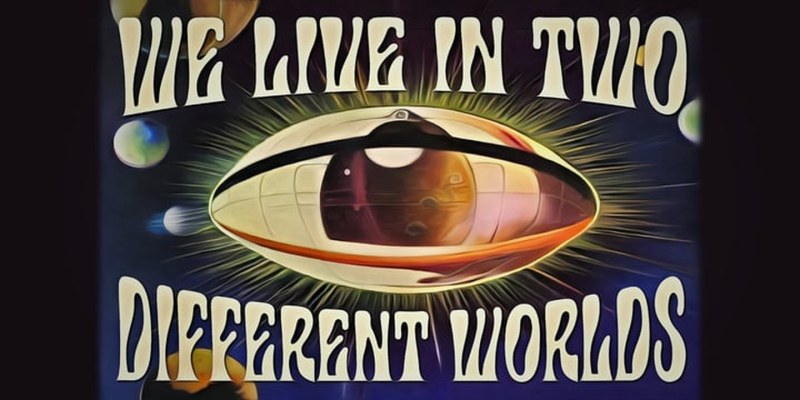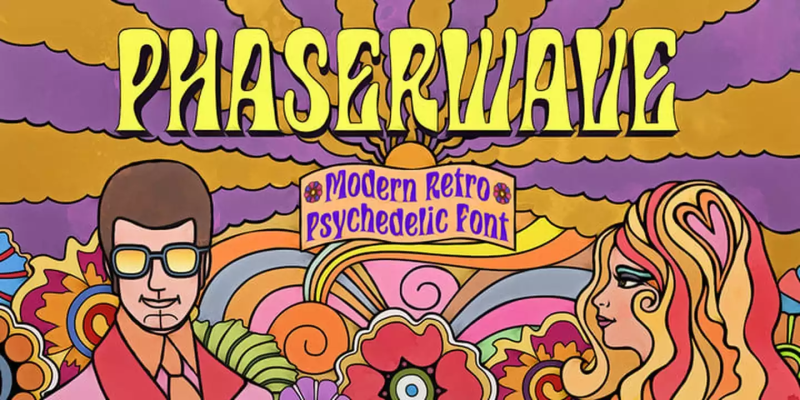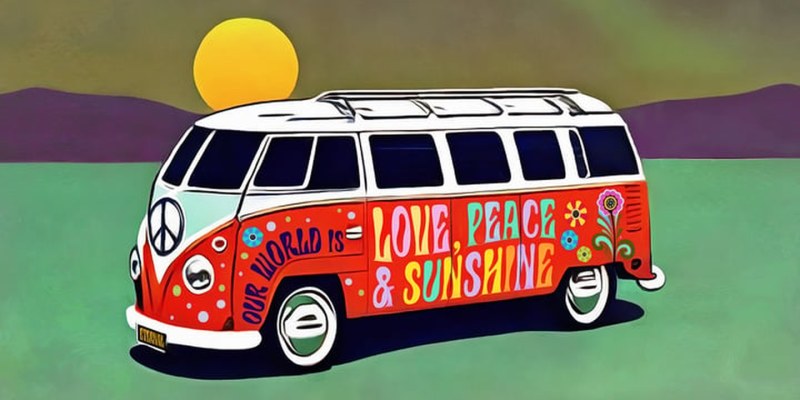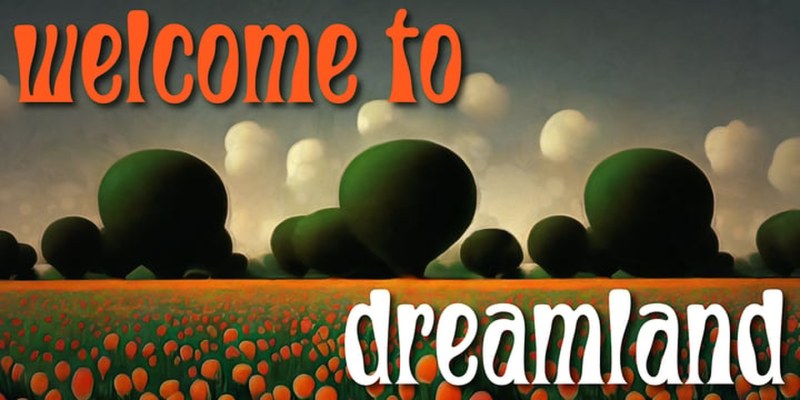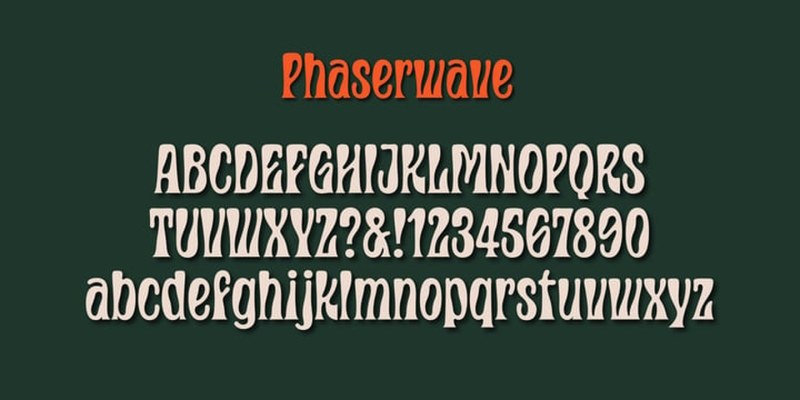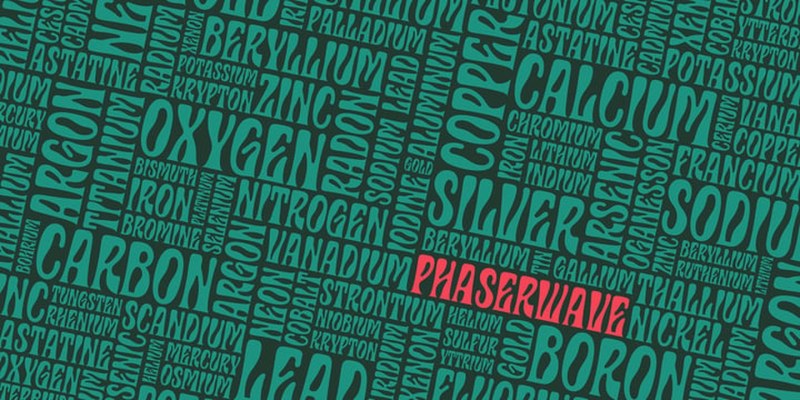
Phaserwave Font
Part of the wave of modern explorations expanding on the 50+ year-old traditions of groovy psychedelic typography, Mysterylab brings you Phaserwave. With an intriguing fusion of pillowy shapes and sharp stroke ends, this font cooks up a heady mélange of whimsical flow and high precision. We’ve applied our usual meticulous attention to great kerning, extensive character set, and seamless functionality, so this font’s ready to rock your designs any way you might want to do it.